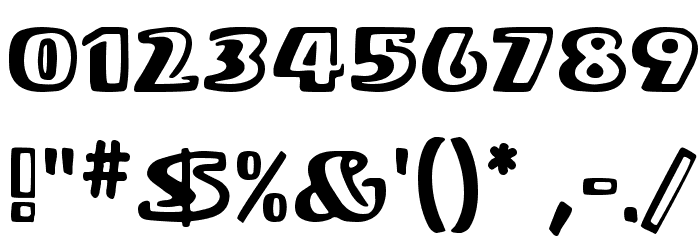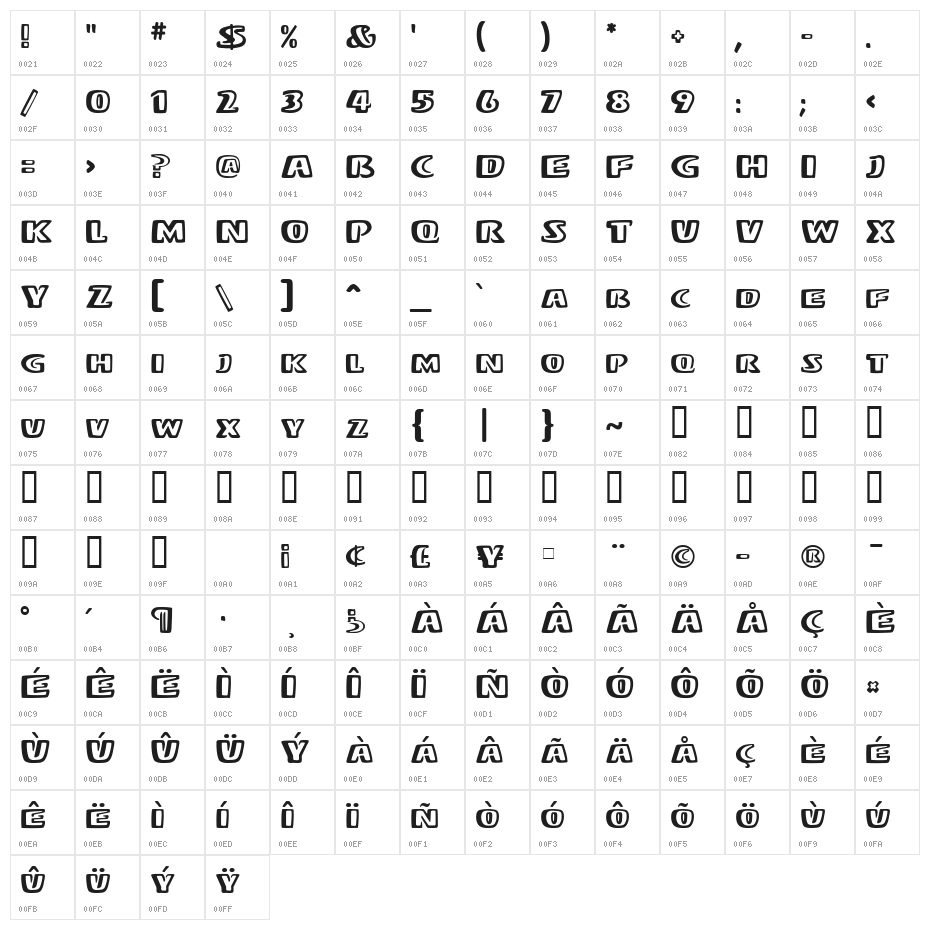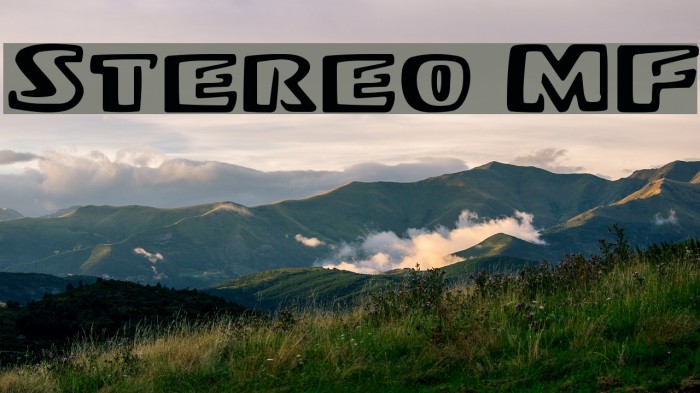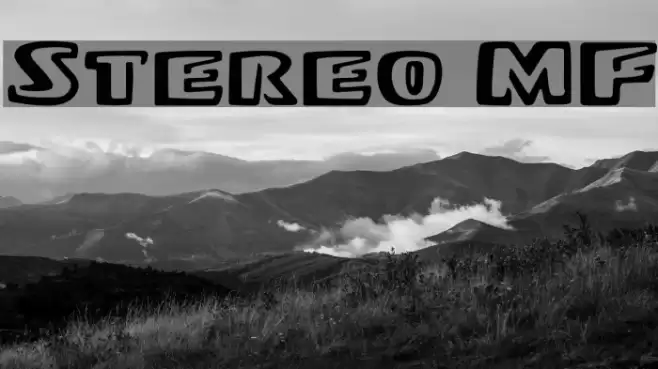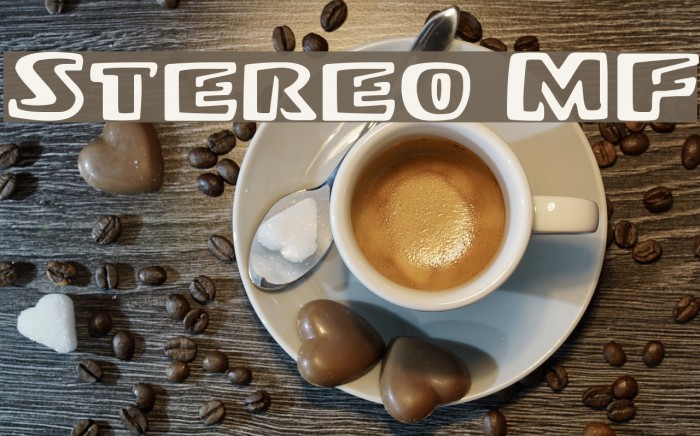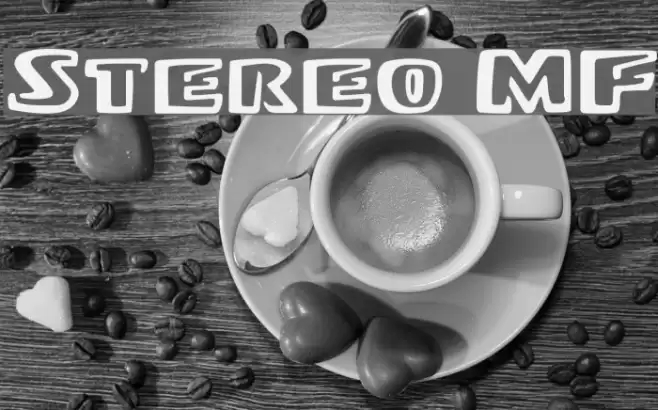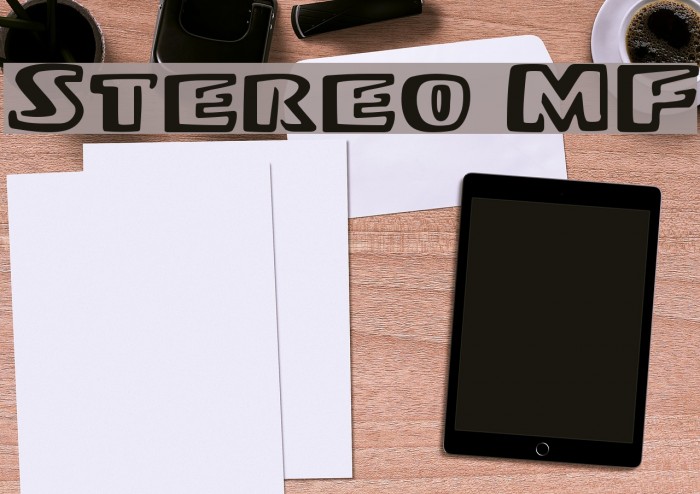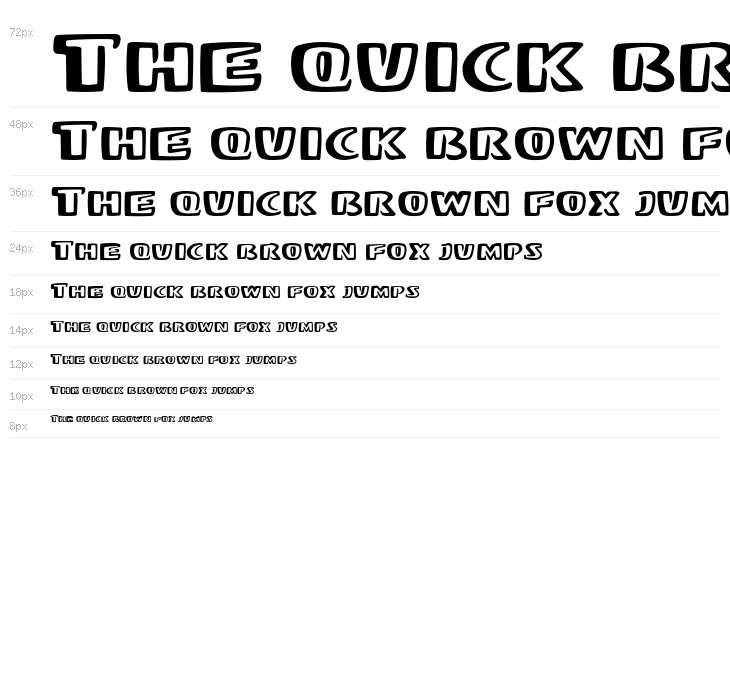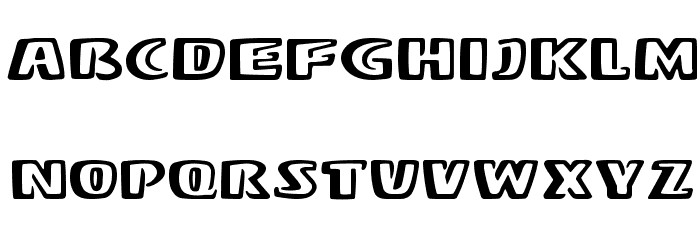
Stereo MF Font
Stereo MF Description
This font features a bold and playful design with a three-dimensional effect, giving it a unique and eye-catching appearance. The letters are characterized by thick strokes and rounded edges, creating a sense of depth and movement. The font maintains a consistent weight throughout, with each character exhibiting a shadow-like outline that enhances its dimensionality. The overall style is modern and dynamic, making it suitable for projects that require a bold and engaging visual impact. The spacing between characters is normal, ensuring readability while maintaining its distinctive style.
| Proposed Projects | Ideal for posters, logos, children's books, and any design needing a fun and dynamic touch. |